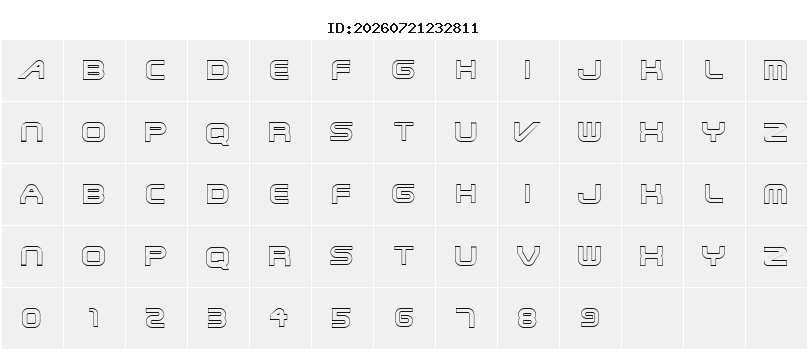
FZ JAZZY 6 HOLLOW Preview
About FZ JAZZY 6 HOLLOW.ttf
FZ JAZZY 6 HOLLOW.ttf is a modern, elegant sans-serif font designed for ultimate readability and visual harmony. Perfect for branding, headlines, web design, and print materials.